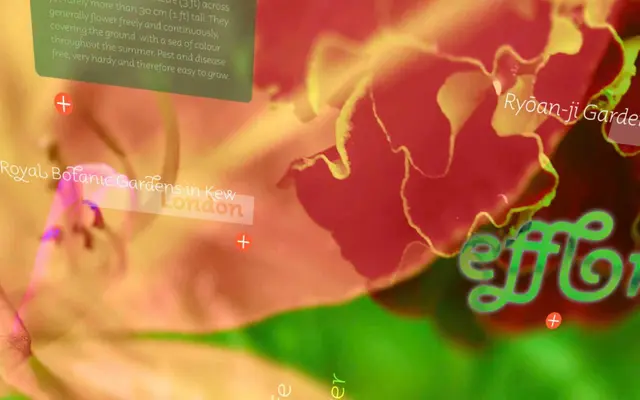
Explorer
Jeremy Tankard Typography · Jeremy Tankard
A typeface from Jeremy Tankard Typography with insufficient page detail to characterise further beyond its listing among the foundry's core releases.
Explorer appears as one of a small, curated set of releases from Jeremy Tankard Typography, a British foundry known for considered, text-oriented designs. The page provided no specimen, description or weight listing for this specific typeface. Further detail would be needed to assess its application range or distinctive qualities.
Jeremy Tankard is known for humanist sans designs; without further page detail the typeface is provisionally classified as humanist sans, consistent with the foundry's broader output and the Explorer name's exploratory, organic connotations.